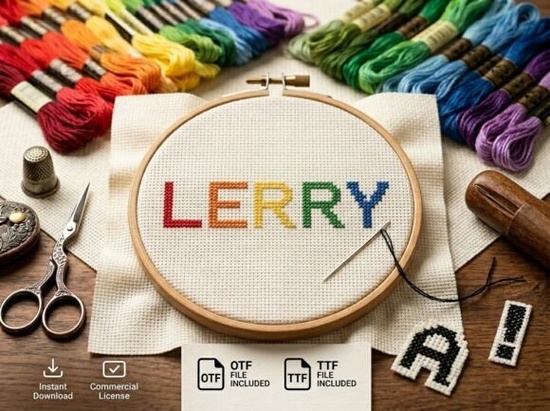
Designers, crafters, and small business owners often look for fonts that can make their work stand out. The Lerry Font is a unique display typeface that delivers just that. With its bold artistic elements and strong visual presence, this font is ideal for creating eye-catching headlines, logos, and packaging designs. Whether you're working on a creative project or running a print-on-demand business, the Lerry Font offers a professional and polished look that’s hard to ignore.
One of the standout features of the Lerry Font is its versatility. It works well for high-impact headlines, artistic logos, and decorative initials. While it doesn’t include lowercase letters, its all-caps design ensures every letter is a statement. This makes it perfect for situations where you want your message to be clear and powerful without any distractions.
It’s important to note that the Lerry Font is an all-caps display typeface. This means it only includes uppercase letters and no lowercase characters. While this might seem limiting, it actually enhances the font’s impact, making it ideal for headlines, logos, and other visual elements where style and clarity are key.
Why Choose the Lerry Font?
If you're looking for a font that adds personality and style to your designs, the Lerry Font is a great choice. Its artistic flair sets it apart from more traditional typefaces, giving your projects a fresh and modern feel. This font is especially useful for branding, marketing materials, and creative packaging where visual appeal is essential.
How to Use the Lerry Font Effectively
To get the most out of the Lerry Font, consider how it will fit into your overall design. Since it’s a display font, it works best when used sparingly. Pair it with simpler, more readable fonts for body text or background elements to create balance. This approach helps maintain visual harmony while letting the Lerry Font shine where it matters most.
Another tip is to experiment with different sizes and placements. Because it’s designed for headlines and logos, using it at a larger size can help emphasize its artistic qualities. You can also play with spacing and alignment to enhance its visual impact.
If you're new to working with display fonts, start by testing the Lerry Font in a few different contexts. This will help you understand how it performs and how it complements other design elements. Over time, you'll develop a better sense of how to use it effectively in your projects.
Lerry Font is a valuable addition to any designer’s toolkit. Its unique style and professional quality make it a go-to choice for creating visually compelling designs. Whether you're working on a logo, a poster, or a packaging concept, this font can help elevate your work and make it more memorable.